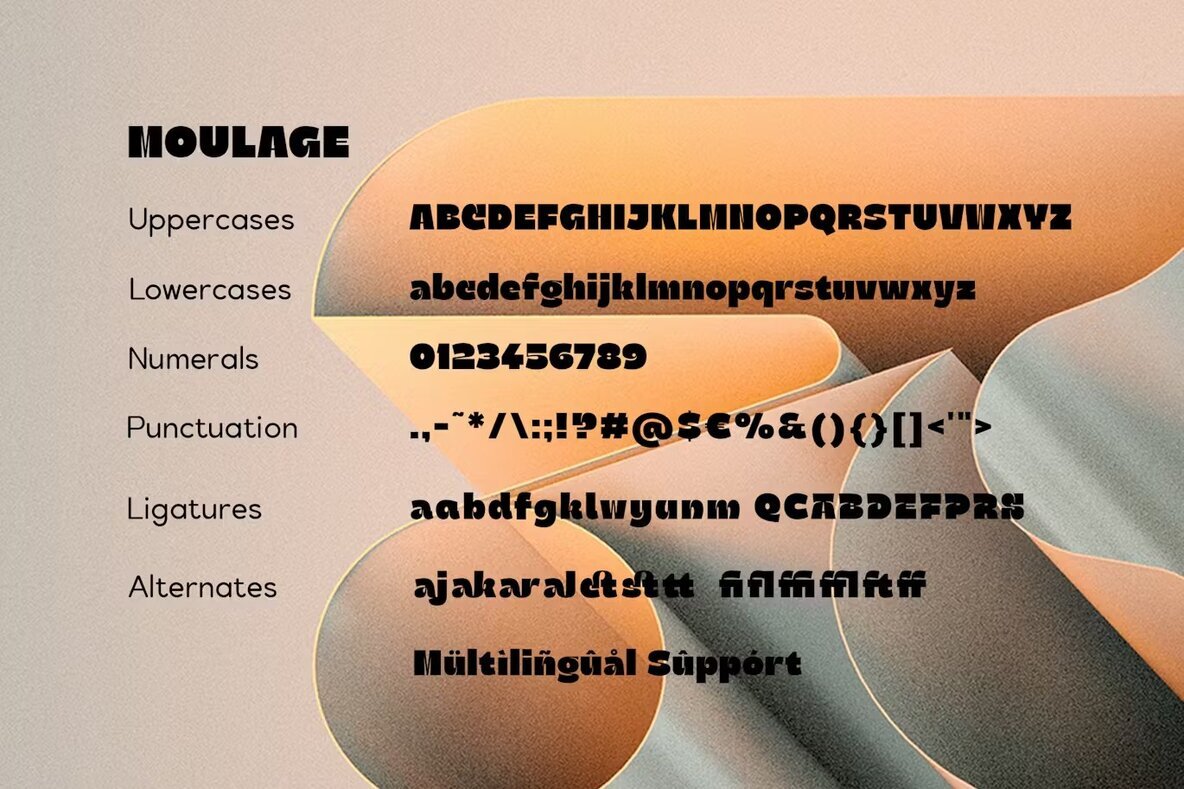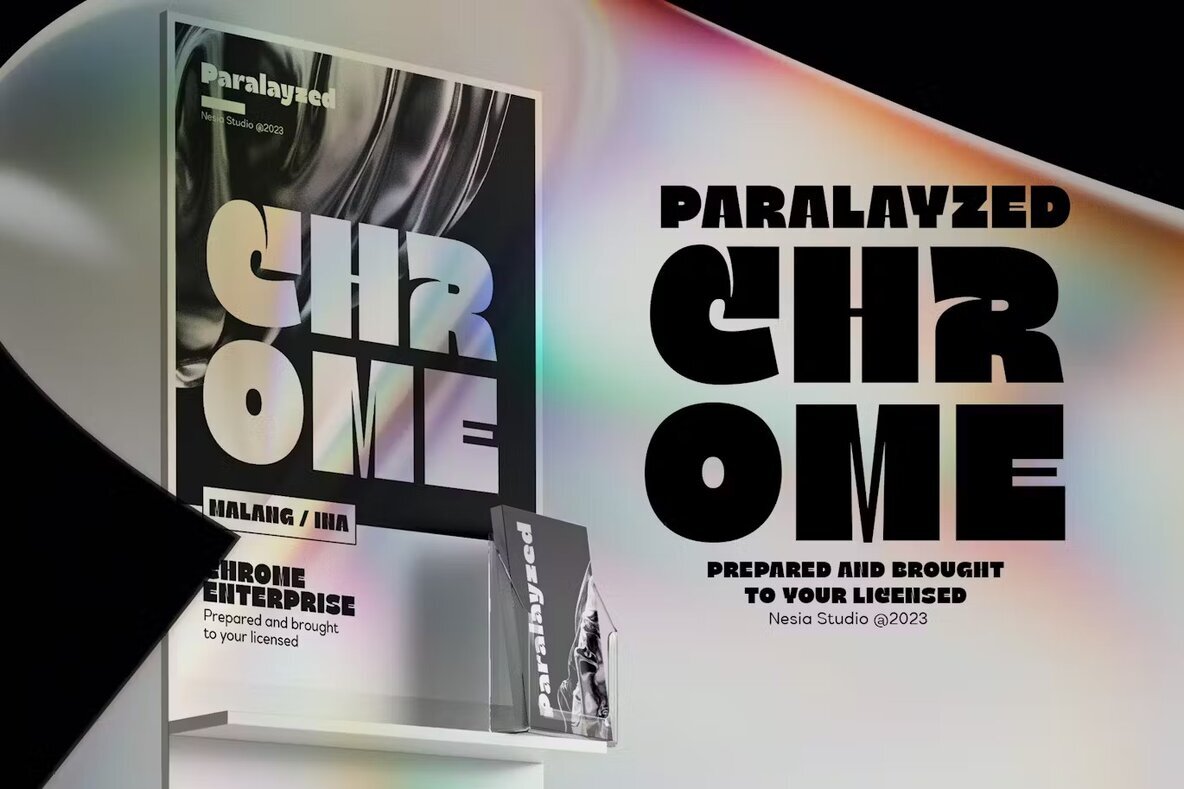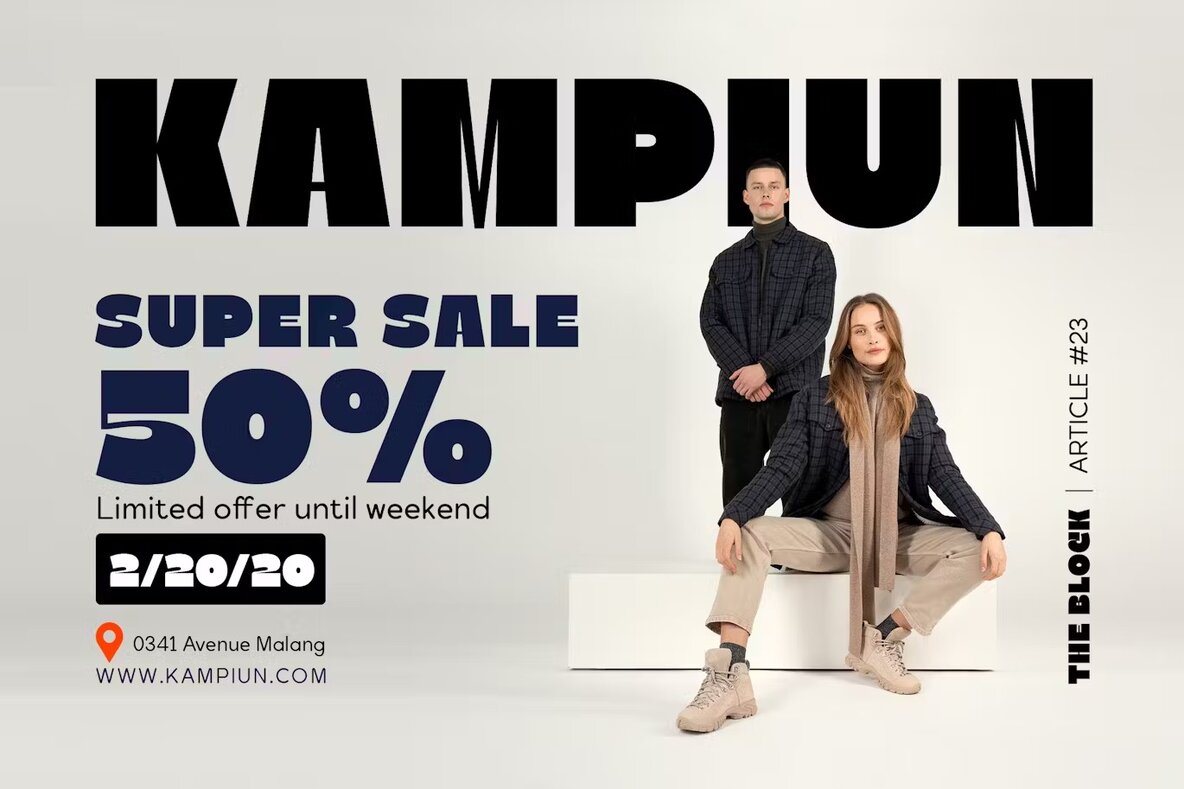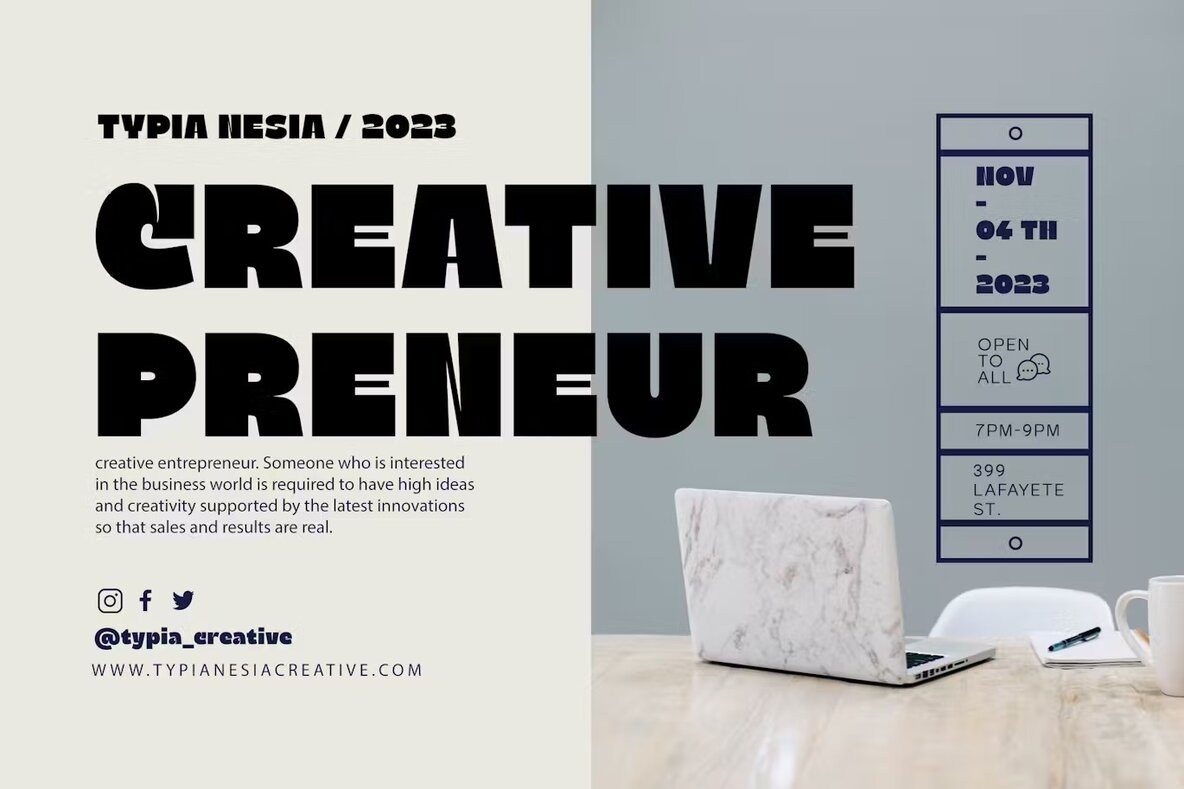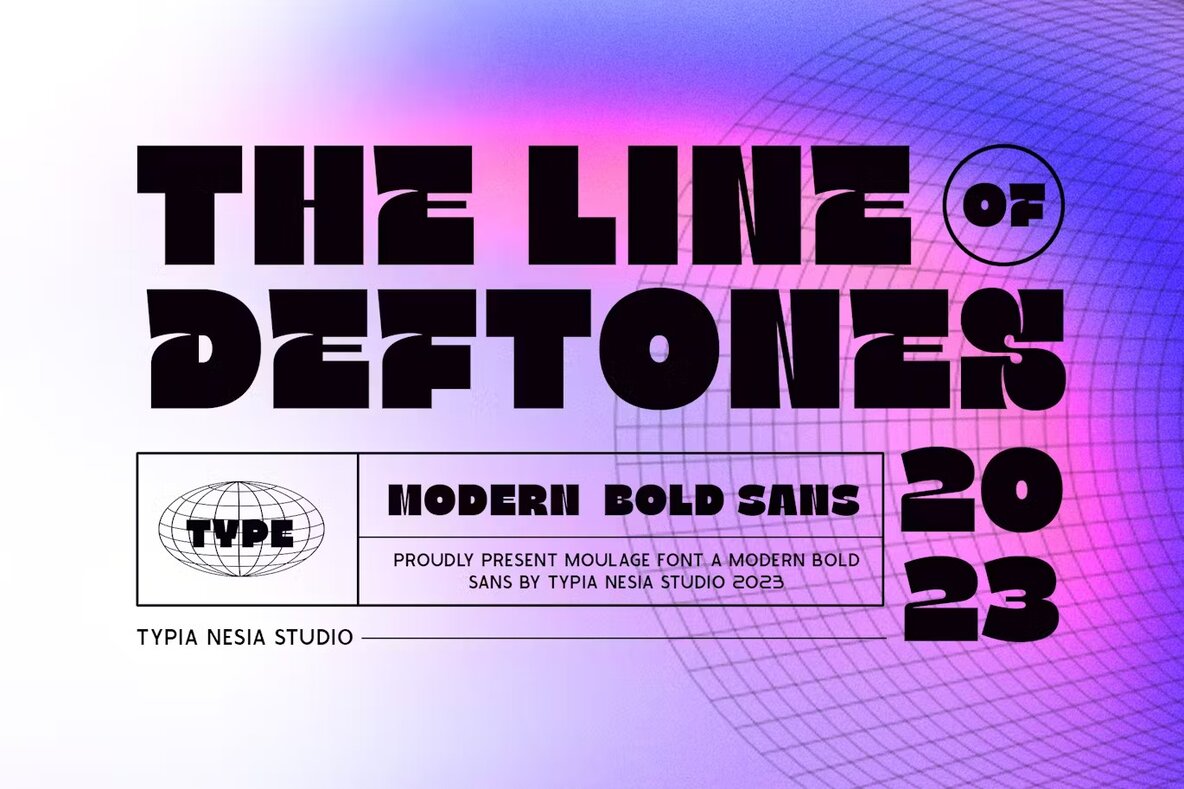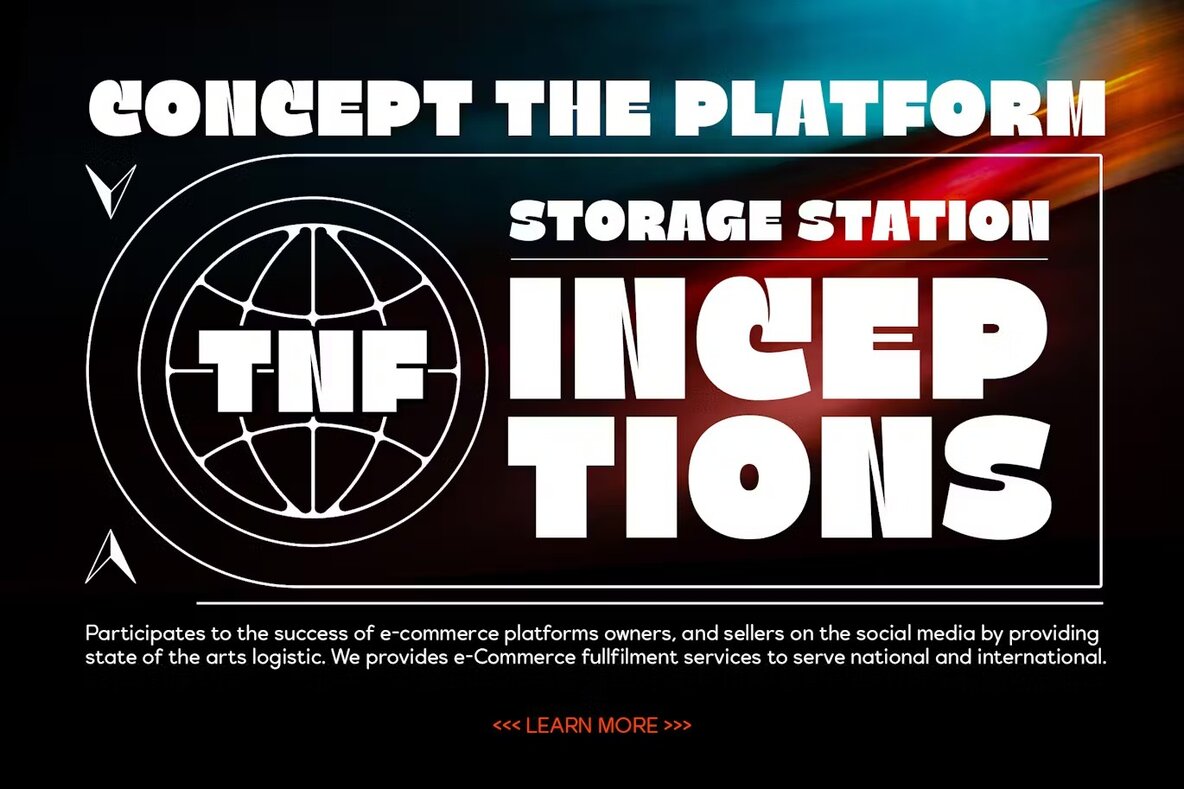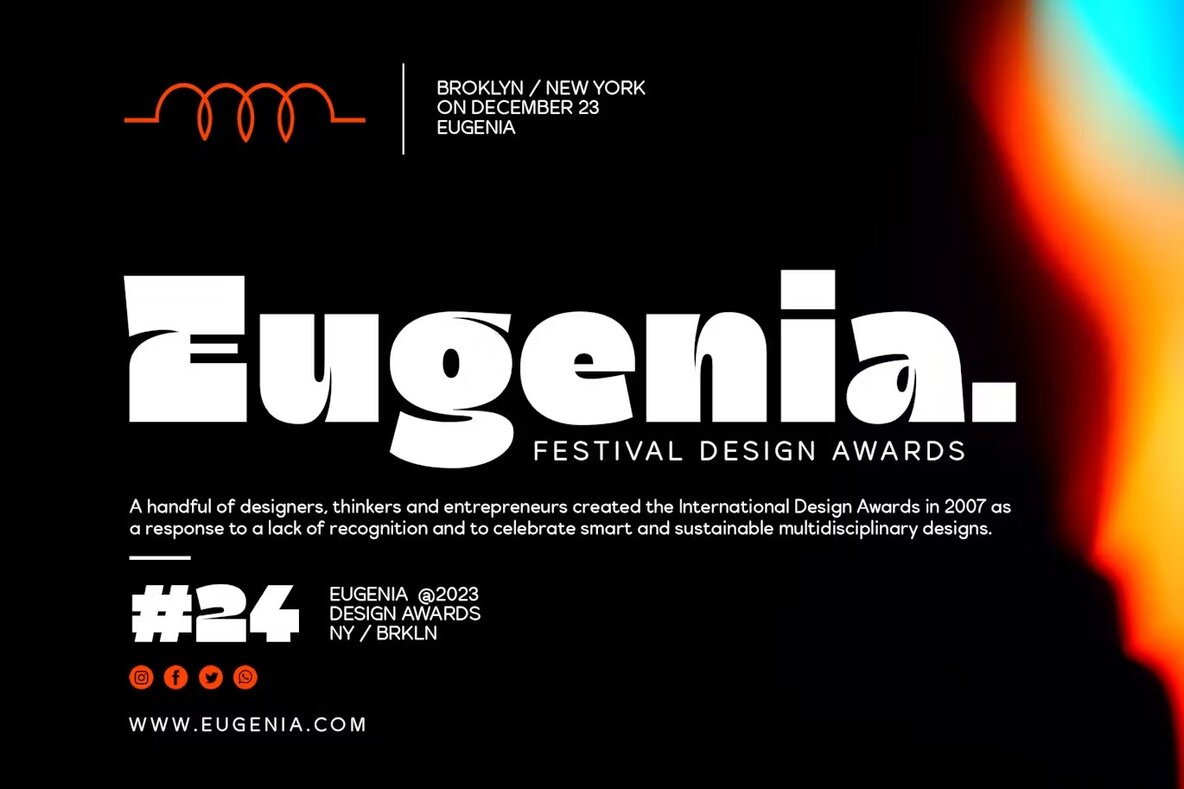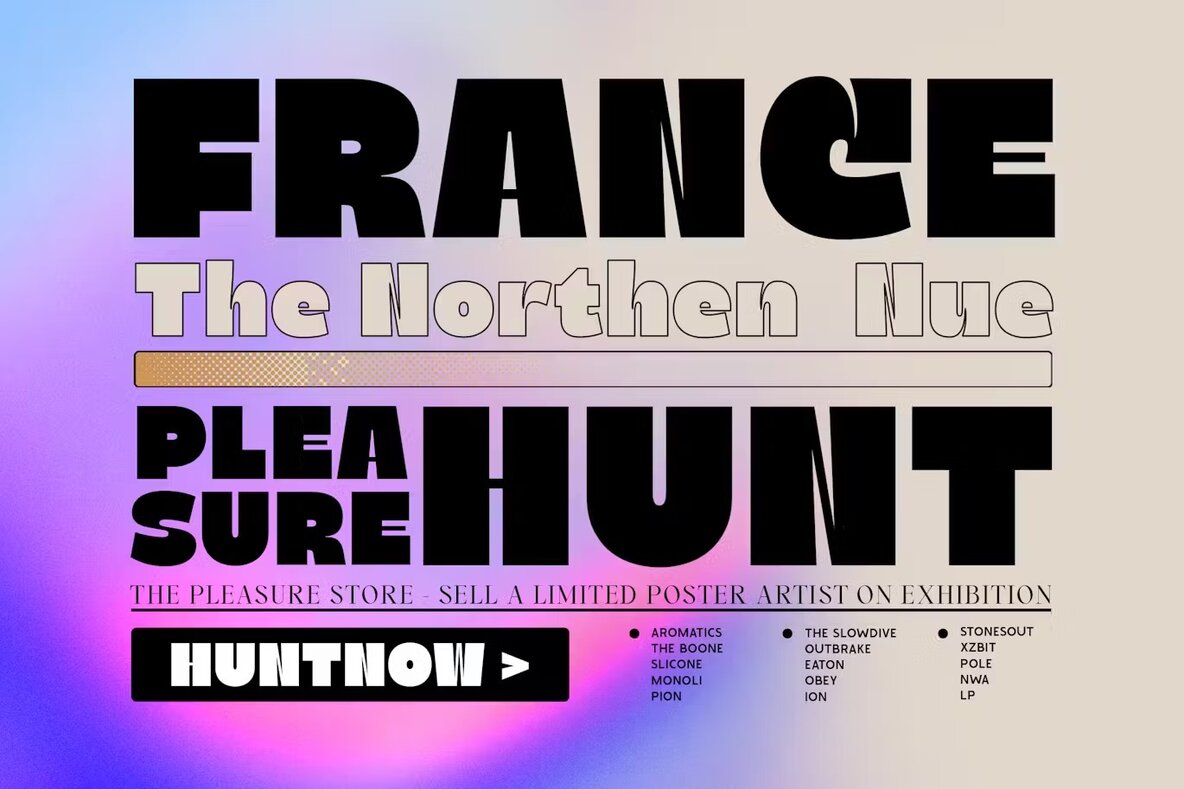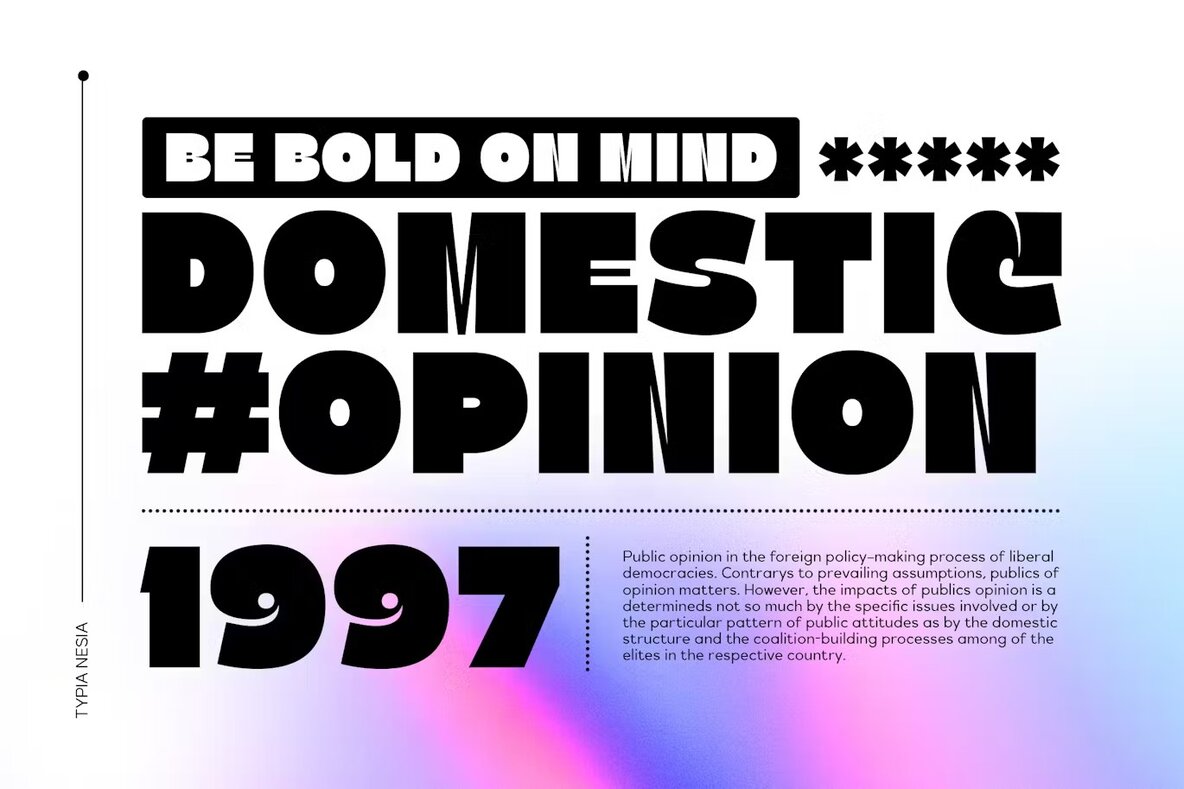
Moulage Font
Moulage Regular
Moulage Font is a stylish bold sans-serif typeface perfect for creating eye-catching headlines and graphic designs. Its robust appearance makes it ideal for a variety of design projects, including branding, packaging, and advertising. It offers a modern and expanded style that stands out in both web and print applications, making it a go-to choice for designers aiming to add a touch of boldness.
Versatile and contemporary, this font can be effectively used across numerous creative projects. Whether you're working on digital media or print materials, its clean lines and strong presence ensure your designs capture attention. Ideal for those looking to make a statement, Moulage Font provides the perfect balance of modernity and impact.